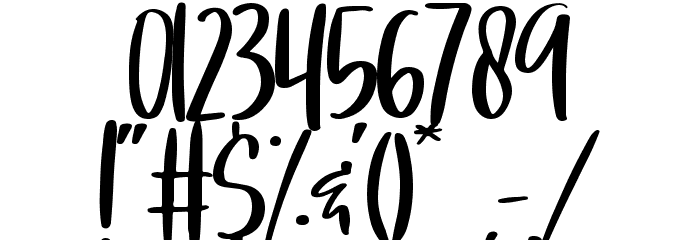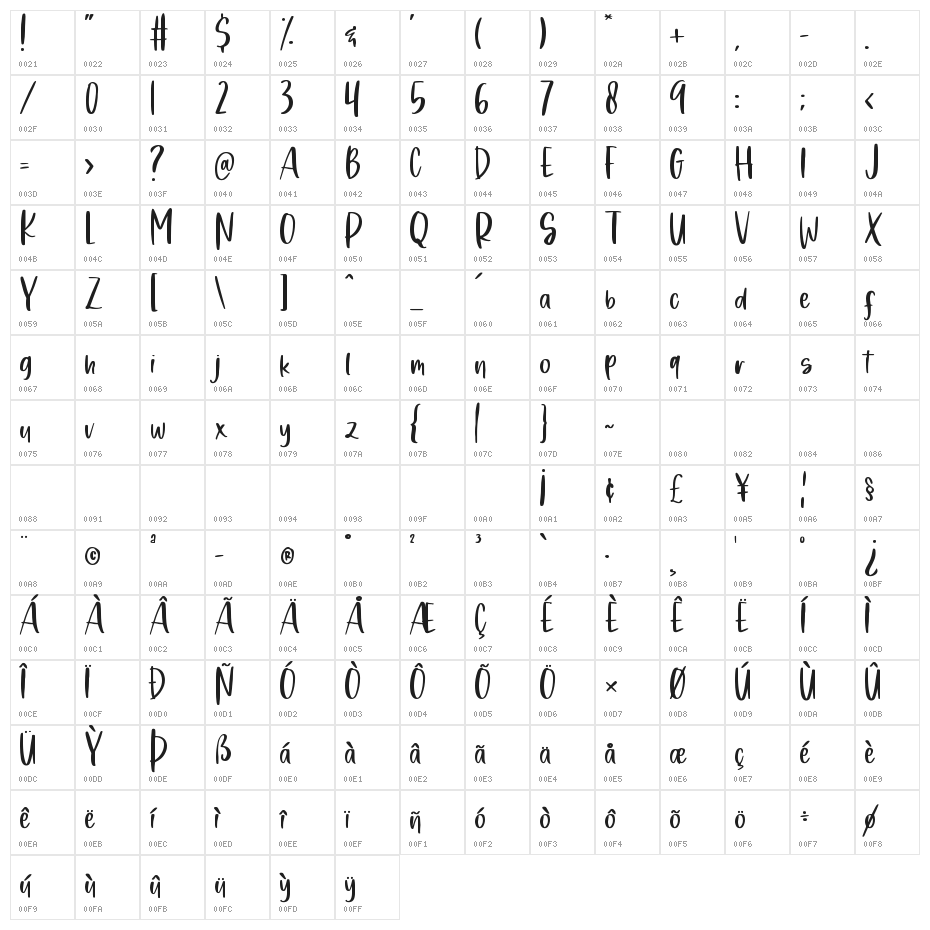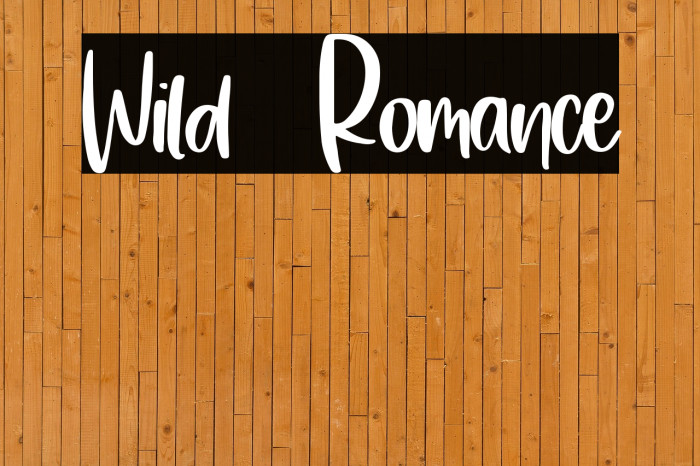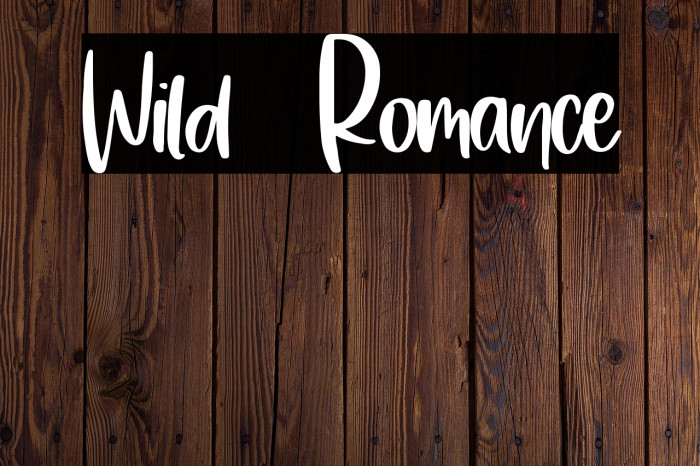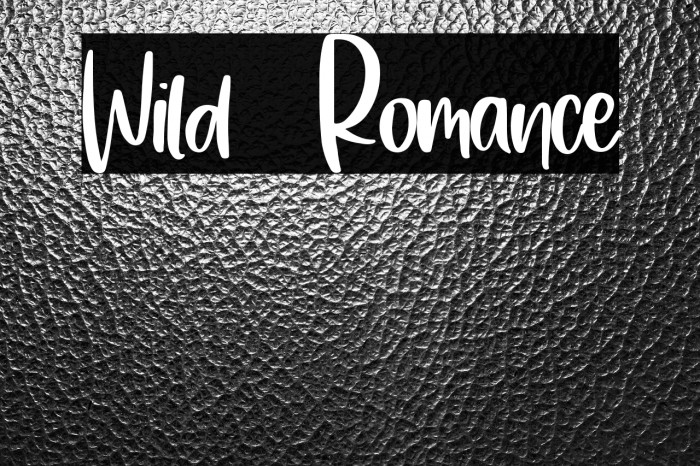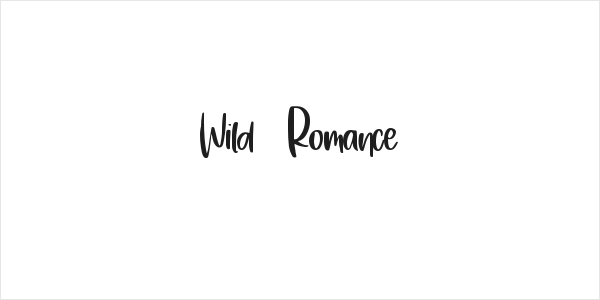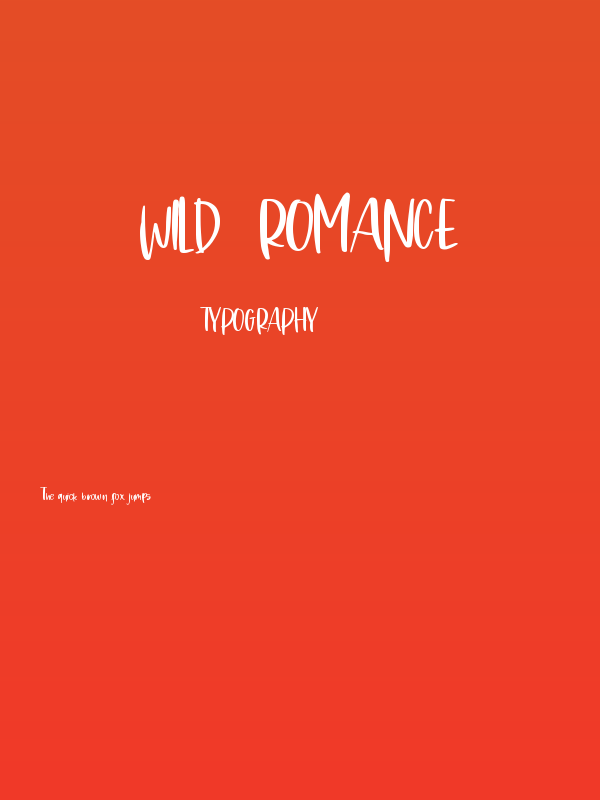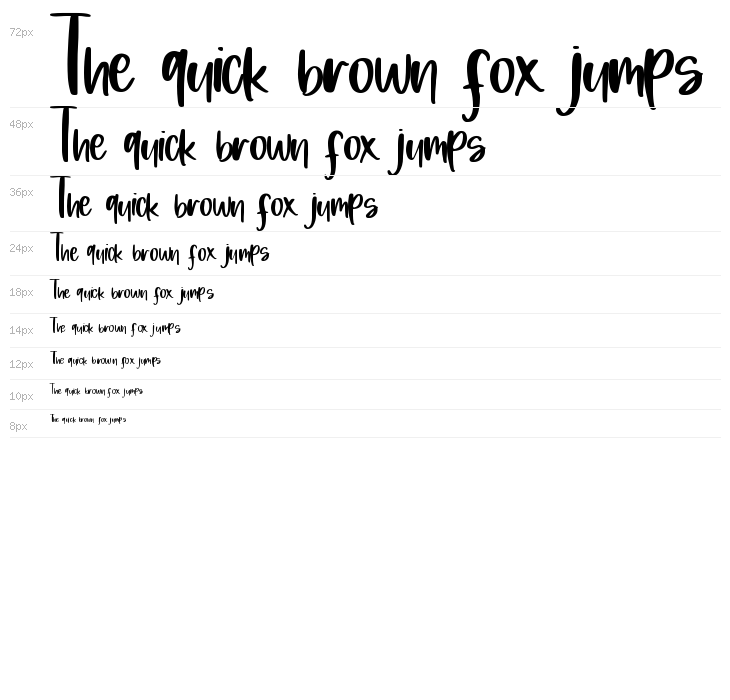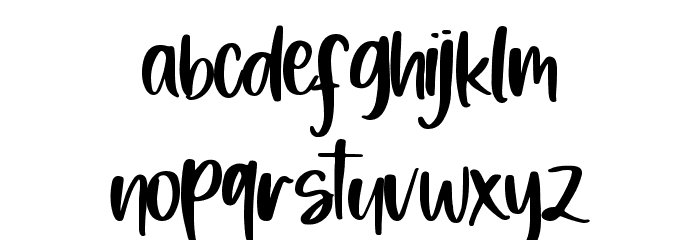
Wild Romance Font
Wild Romance Description
This font features a playful and energetic handwritten style, characterized by its tall, narrow letters with a slight slant. The strokes are smooth and fluid, giving it a casual yet stylish appearance. The uppercase letters are bold and prominent, while the lowercase letters maintain a consistent flow with rounded edges. Numbers and special characters follow the same lively aesthetic, making the font versatile for various creative applications. Its unique charm lies in the balance between spontaneity and readability, making it suitable for projects that require a personal touch.
| Use Case | Logos, Headlines, Social Media Graphics |
| Proposed Projects | Ideal for greeting cards, invitations, social media graphics, and branding projects that require a personal and lively touch. |